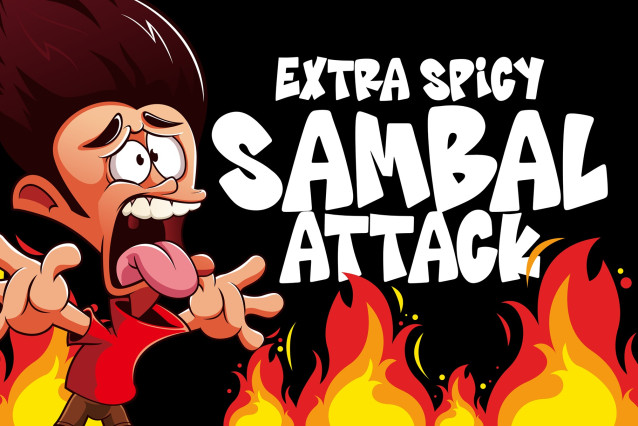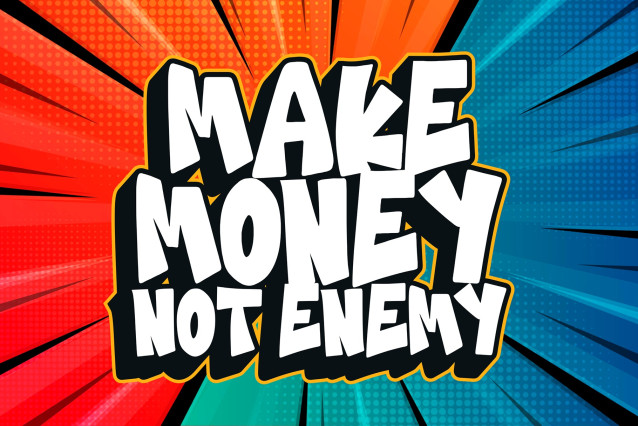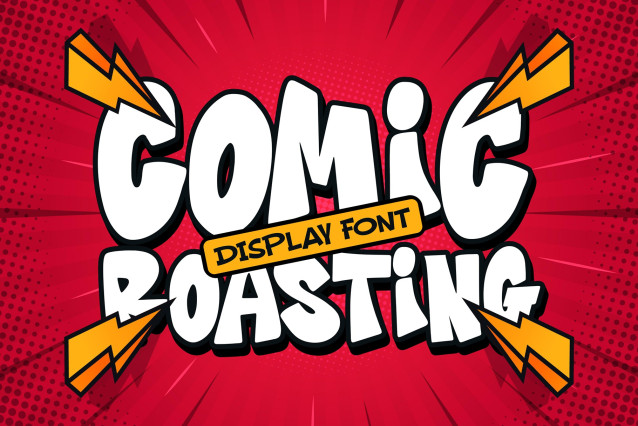
Comic Roasting Font
Comic Roasting – Comic Display Font is a bold, allcaps typeface created for playful, dynamic, and expressive design projects. With its quirky forms and unique curves, Comic Roasting instantly captures attention while adding humor and personality to your work.
This comic display font is perfect for posters, stickers, social media content, children’s branding, and logos that need a playful, approachable vibe. If your goal is to create designs that feel bold yet friendly, Comic Roasting is the ultimate choice.
Comic Display Font with Allcaps Energy
Comic Roasting isn’t just any font—it’s a carefully designed comic display font built entirely in allcaps. The uppercase style gives every word a bold presence, ensuring your message pops in posters, titles, and covers. With multilingual support, it’s not limited to one region or audience. This makes it a fantastic option for global projects that need to radiate fun and excitement.
From sticker packs to YouTube thumbnails, Comic Roasting brings expressive energy that feels hand-drawn yet polished.